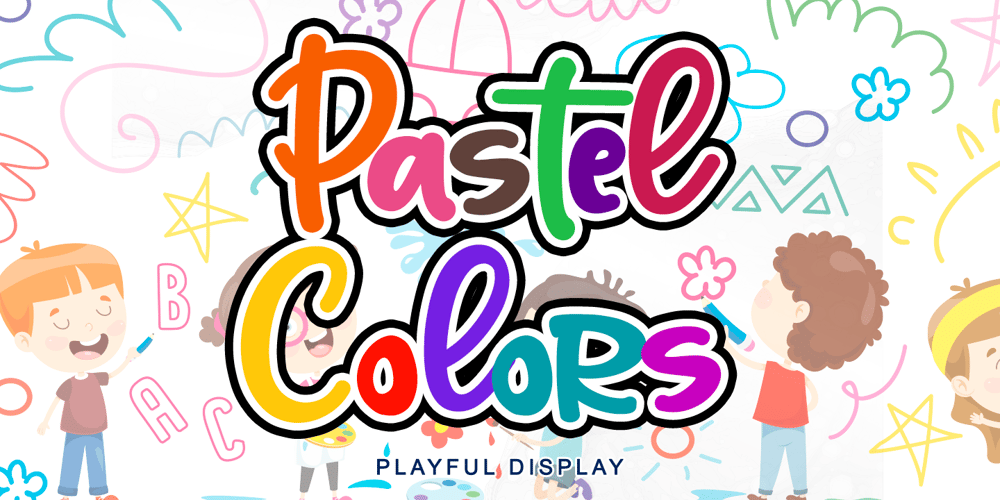
Pastel Colors Font Family was designed by Stefani Tri Rosa Setiati Christiana and published by Stefani Letter. Pastel Colors contains 2 styles and family package options. Pastel Colors is a fun and cute display font. It has a playful style and great readability. It’s perfect for Christmas cards, branding, stationery, blog design, custom art, custom stamps, custom embossers, book, apparel, packaging, headline, or much more! It will add a unique feel and looks stunning to any design project! This font is PUA encoded which means you can access all of the cute glyphs with ease! It also features a wealth of including ligatures. Fall in love with its incredibly distinct and timeless style and use it to create spectacular designs!